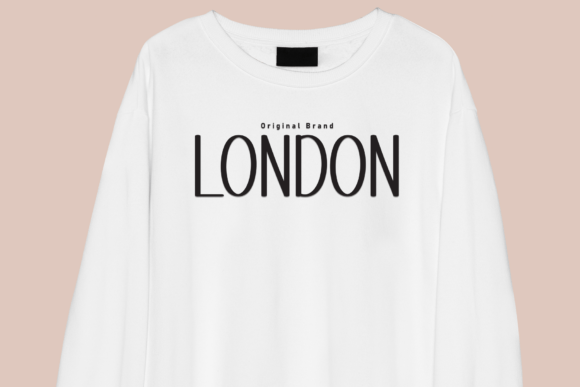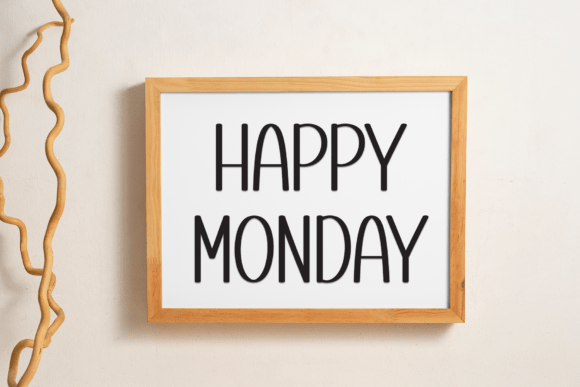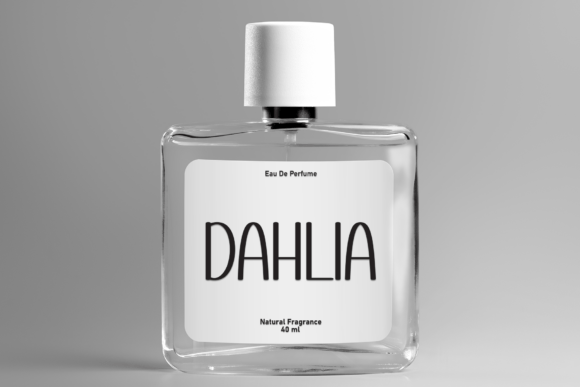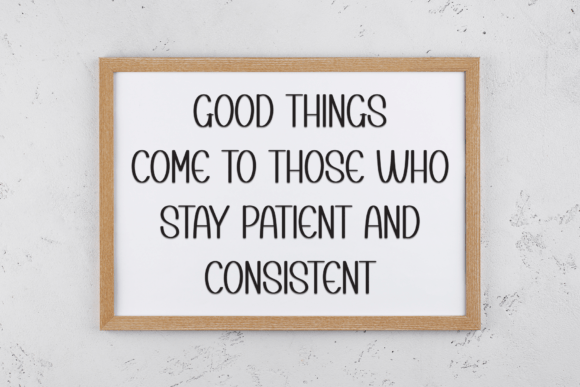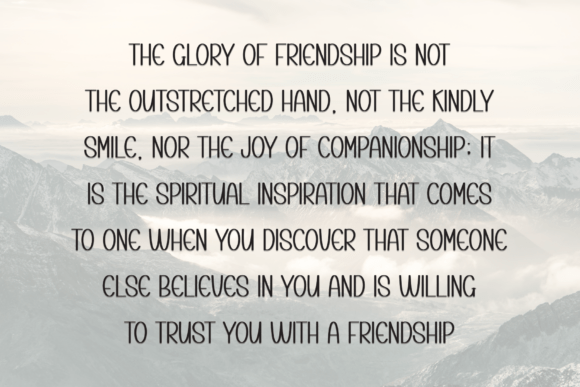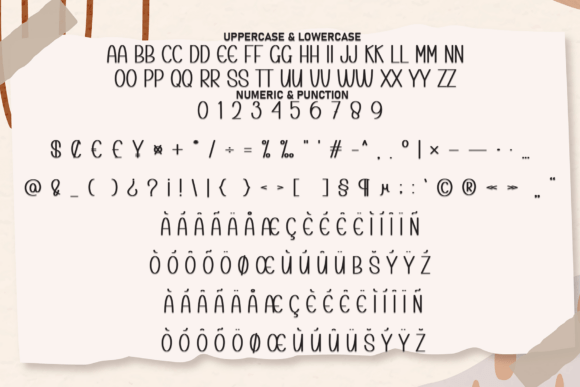
Indulge in the Sweetness of Banana Cupcake Font
Are you tired of using the same old fonts for your designs? Look no further! Introducing Banana Cupcake, a delightful handwritten font that’s sure to satisfy your craving for charming design. With its sweet and playful personality, this font brings a joyful energy to any layout, making it perfect for a variety of creative projects.
The Perfect Blend of Clean and Whimsical
Banana Cupcake boasts a clean yet whimsical silhouette that sets it apart from other fonts. Its elegant strokes and rounded edges give it a friendly and approachable feel, making it an ideal choice for designs that require a touch of warmth and personality. Whether you’re designing a menu for a cozy café, a celebratory greeting card, or a playful packaging label, Banana Cupcake is the perfect font to add a dash of handcrafted charm to your text.
Ideal for Bakery Branding and More
Bakery branding is one of the most obvious uses for Banana Cupcake, and for good reason. The font’s sweet and indulgent feel makes it a natural fit for bakeries, cafes, and dessert shops. But its uses don’t stop there. This versatile font is also perfect for:
- Children’s event invitations: Add a playful touch to your party invites and make them stand out with Banana Cupcake’s fun and lively vibe.
- Playful packaging: Make your product labels and packaging more engaging and eye-catching with this delightful font.
- Social media graphics: Bring a smile to your followers’ faces with Banana Cupcake’s friendly and approachable personality.
Why Choose Banana Cupcake Font?
So, what makes Banana Cupcake font so special? Here are just a few reasons why designers and crafters love this font:
- Unique and eye-catching: Banana Cupcake’s distinctive silhouette sets it apart from more traditional fonts, making it perfect for designs that need to stand out.
- Versatile: This font can be used for a wide range of projects, from bakery branding to social media graphics.
- Easy to read: Despite its playful feel, Banana Cupcake is surprisingly easy to read, making it perfect for longer blocks of text.
- Handcrafted feel: This font adds a touch of handcrafted warmth to your designs, giving them a more personal and human feel.
Tips for Using Banana Cupcake Font
To get the most out of Banana Cupcake font, here are a few tips to keep in mind:
- Use it with contrasting colors: Banana Cupcake’s lighthearted personality really pops when paired with bold, contrasting colors.
- Experiment with different sizes: This font looks great in a variety of sizes, from large headings to smaller body text.
- Pair it with other fonts: Try pairing Banana Cupcake with other fonts for a unique and eye-catching combination.
If you’re looking for a font that will add a touch of sweetness and whimsy to your designs, look no further than Banana Cupcake. With its unique blend of clean and playful elements, this font is perfect for a wide range of creative projects. So why wait? Indulge in the sweetness of Banana Cupcake font today and bring a little joy and personality to your designs!